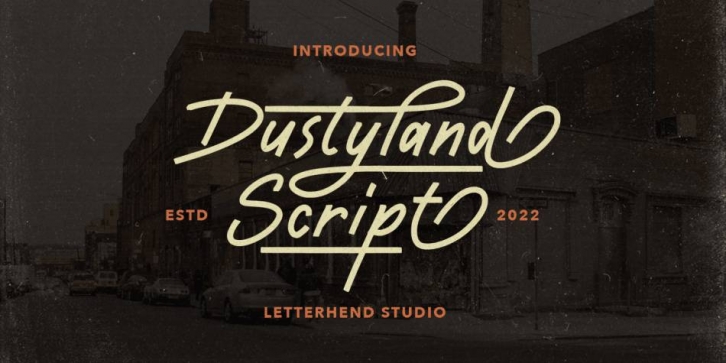
Dustyland Script is a monoline script with a touch of vintage look and feel. This type of font perfectly made to be applied especially in logo, headline, signage and the other various formal forms such as invitations, labels, logos, magazines, books, greeting / wedding cards, packaging, fashion, make up, stationery, novels, labels or any type of advertising purpose.
- uppercase & lowercase
- numbers and punctuation
- multilingual
- alternates / swashes and ligatures
Font Family: Dustyland Regular